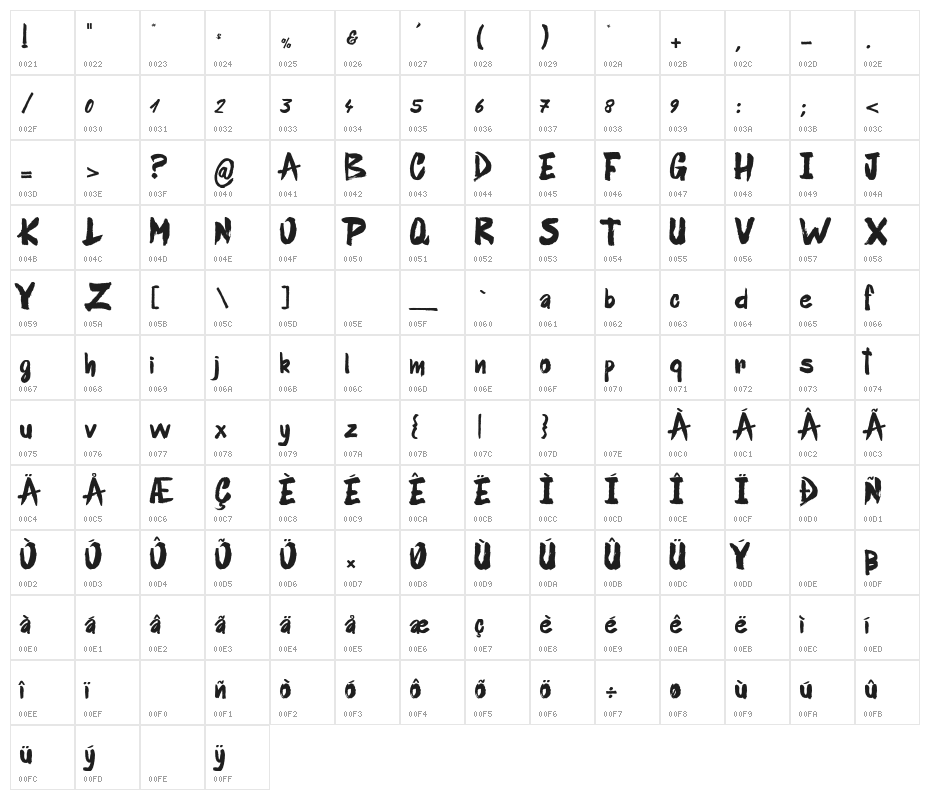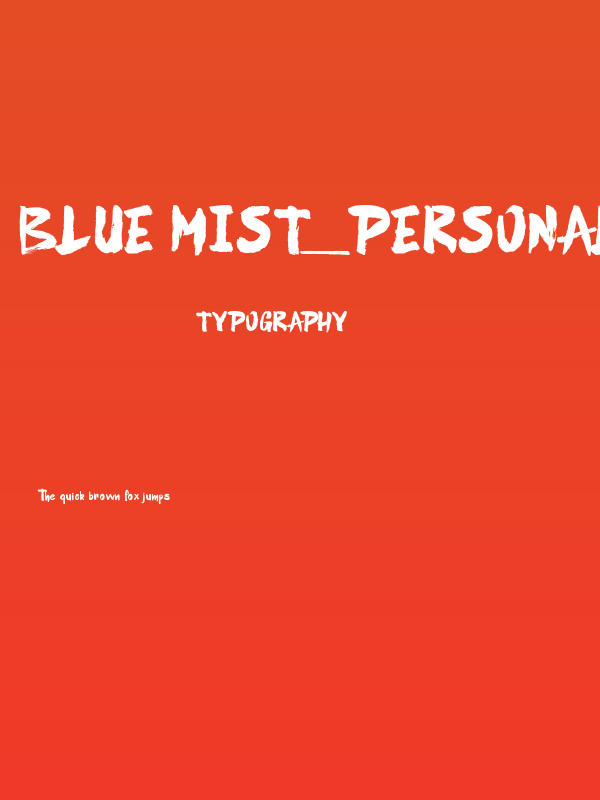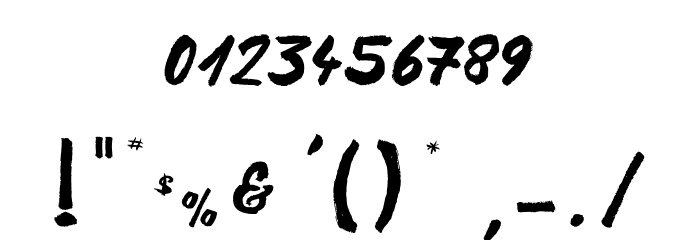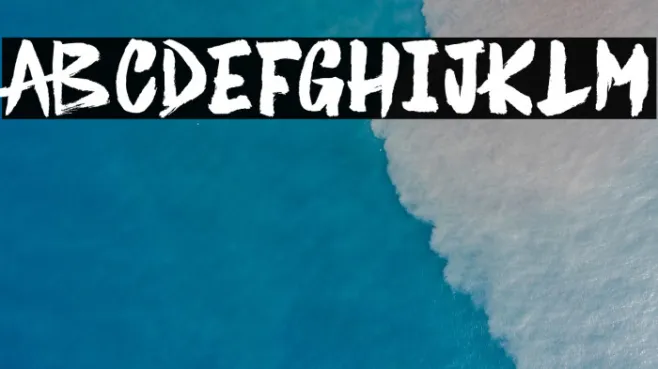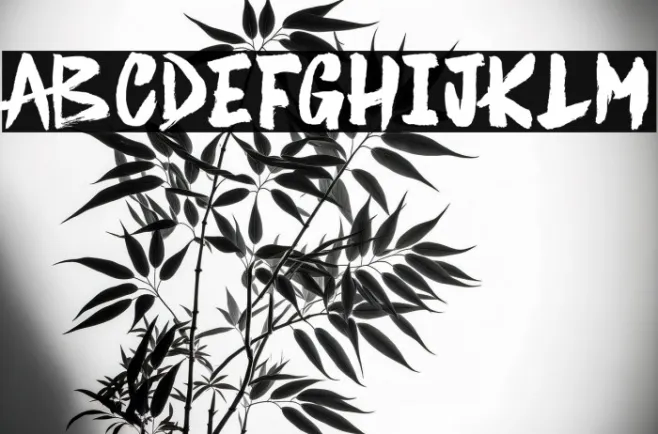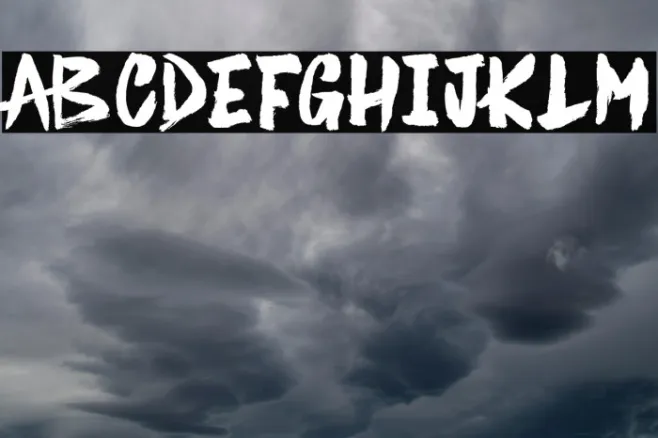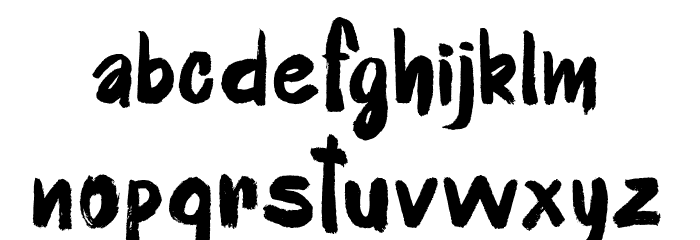
Blue Mist_PersonalUseOnly Font
Blue Mist_PersonalUseOnly Description
This font exhibits a bold and expressive brushstroke style, characterized by its dynamic and energetic appearance. The letters have a hand-painted feel, with varying stroke thickness that adds a sense of movement and vibrancy. The uppercase and lowercase letters maintain a consistent style, with slightly irregular edges that enhance the handcrafted aesthetic. The numerals and special characters follow the same artistic approach, making the font suitable for creative and informal applications. Its unique style makes it stand out, perfect for projects that require a personal touch.